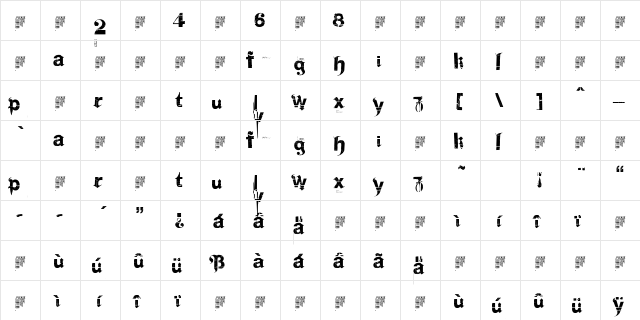
Frakturika Regular
Design Context for Frakturika Typeface
Frakturika channels the dramatic heritage of Fraktur and Gothic scripts, bringing a sense of historical gravitas to any design.
A natural fit for music packaging, gothic editorial design, and any project that needs historical weight.
Font Pairing: Pair with a clean neutral sans-serif for body copy to let Frakturika's character lead without overwhelming the composition.
Pro Tip: Reserve Frakturika for display and logo use — pair it with a clean sans-serif for body copy to prevent the composition from feeling oppressive.